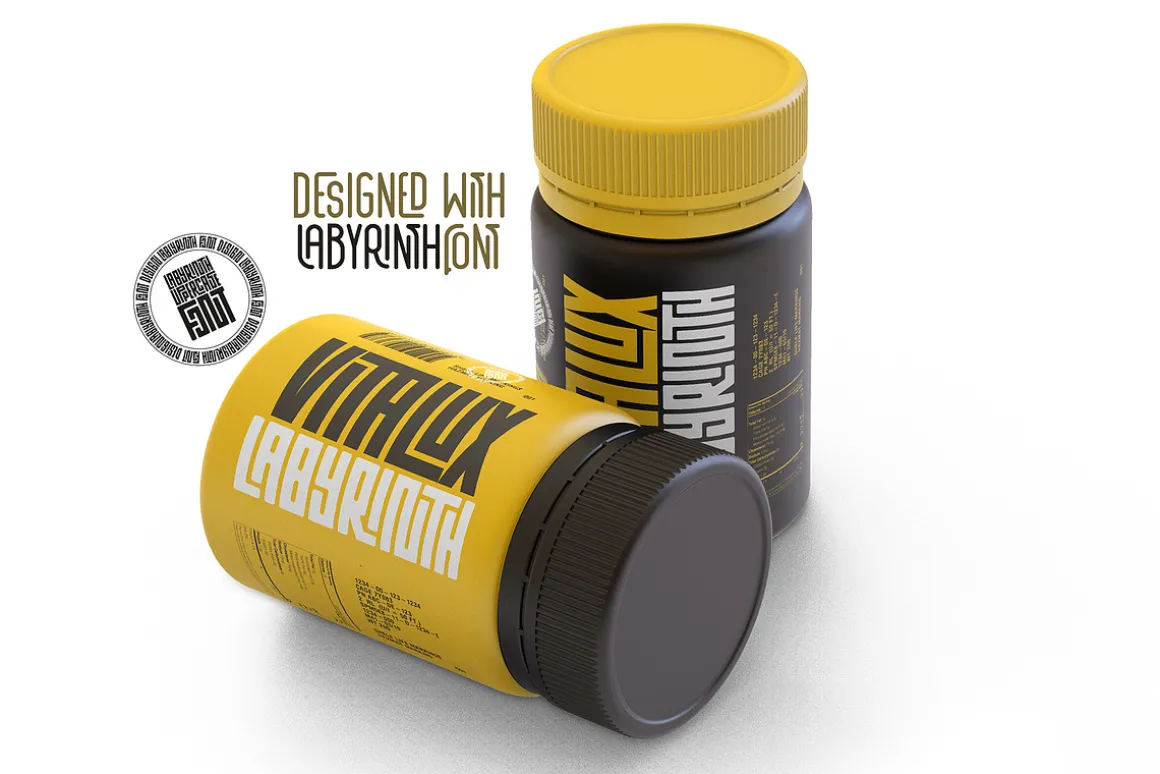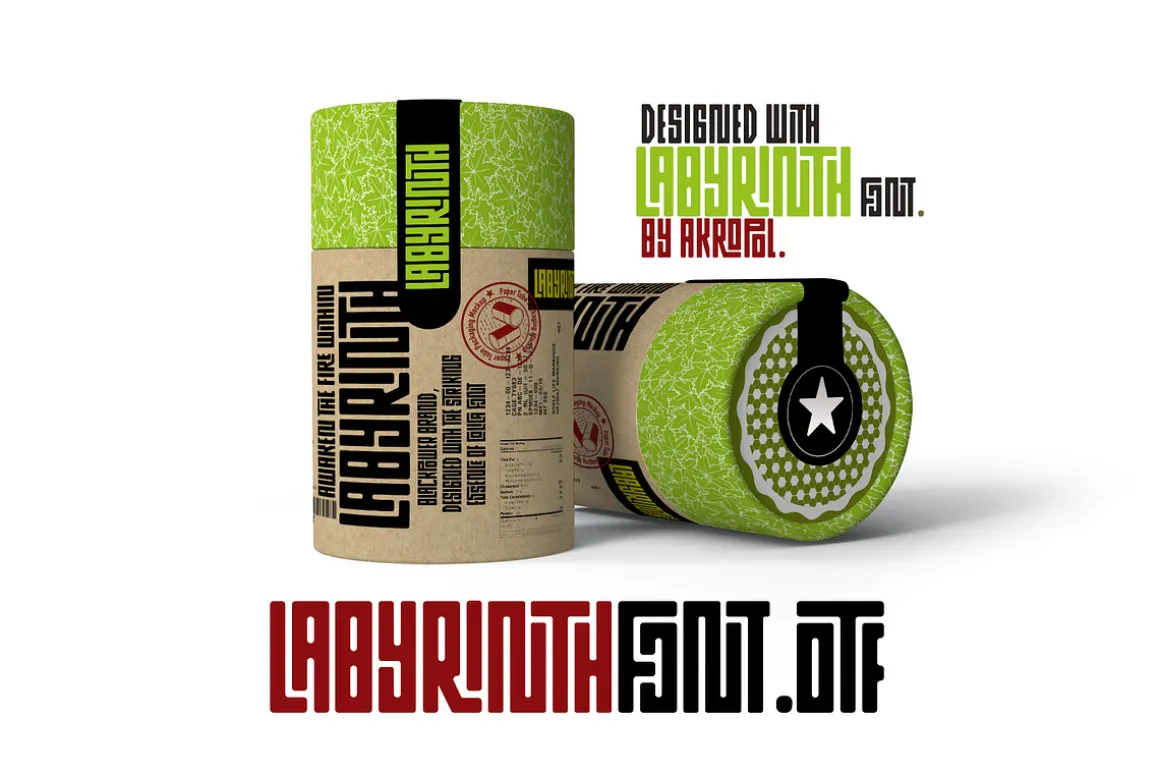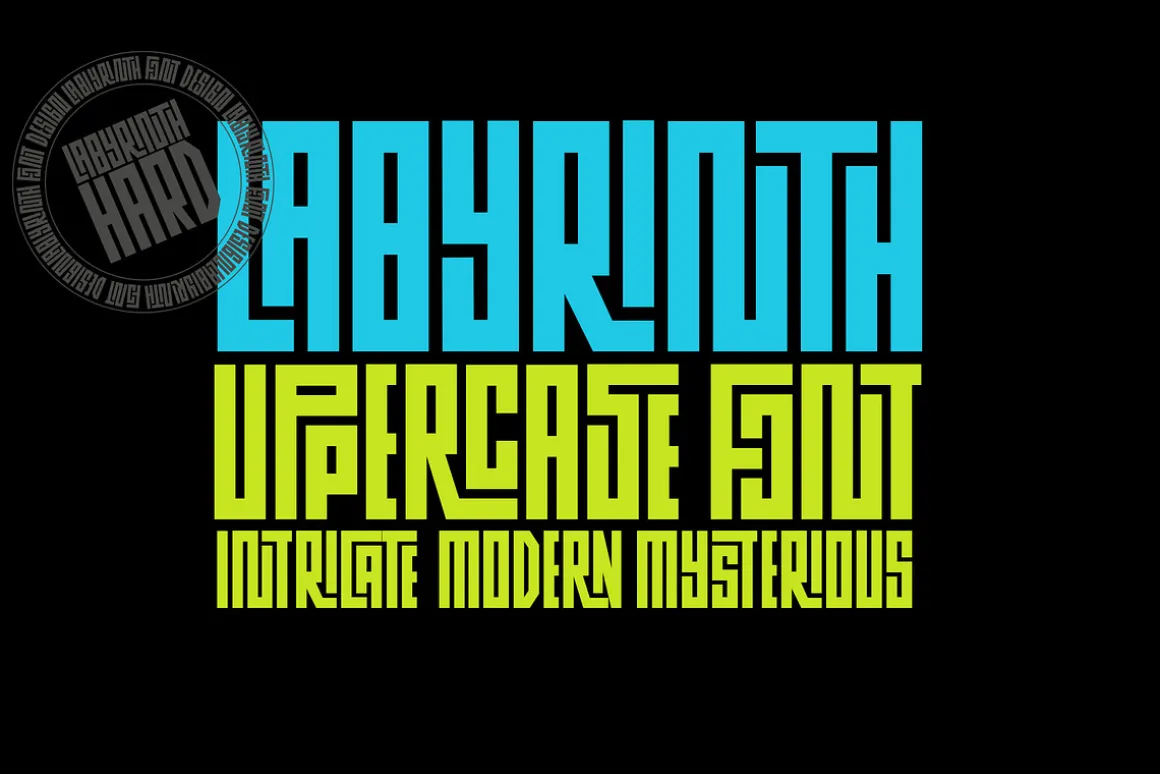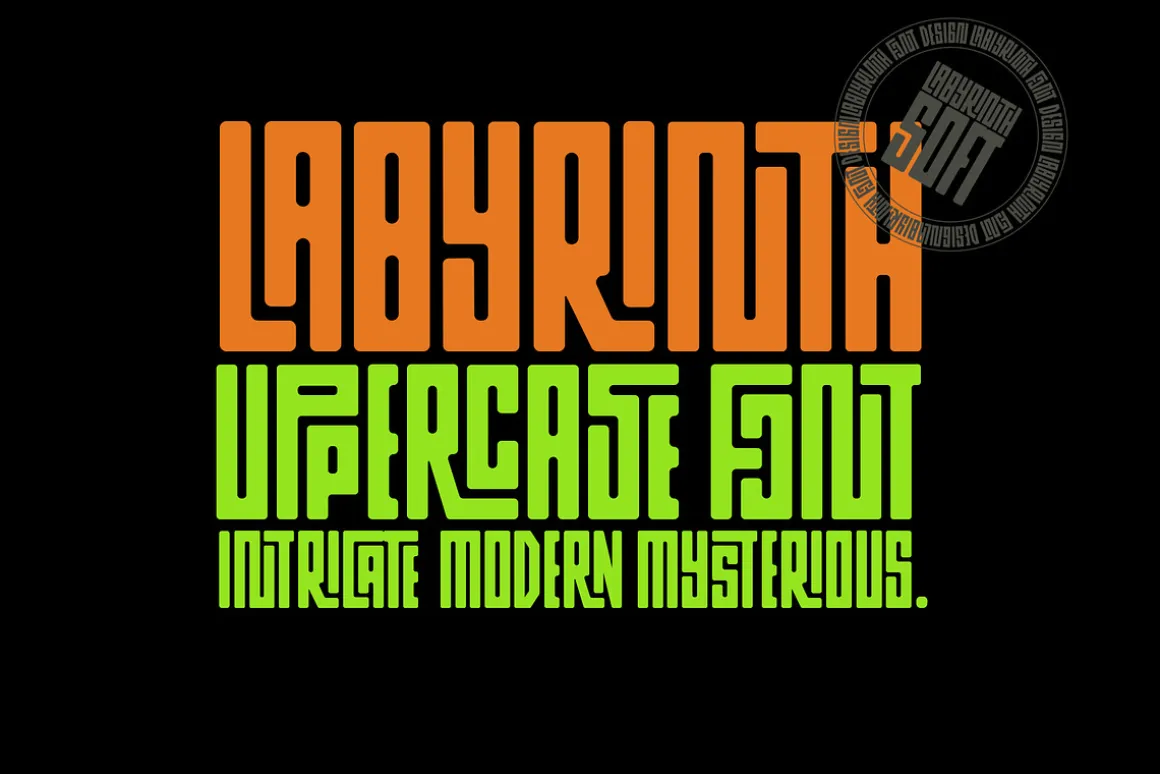
Labyrinth Upper Case Font is a bold display typeface crafted with maze-inspired lines and geometric depth. Designed entirely in uppercase, it brings a mysterious, artistic edge to logos, titles, posters, and digital visuals. Perfect for creators who want a striking, unforgettable look.